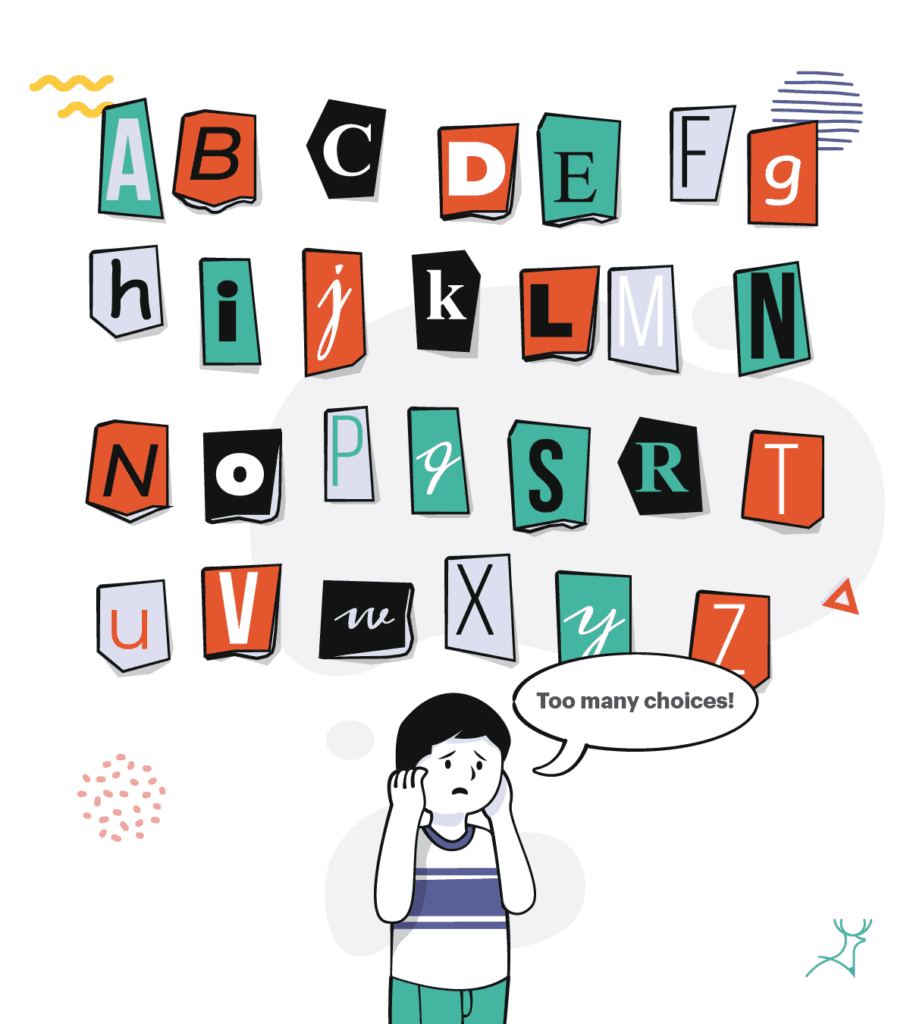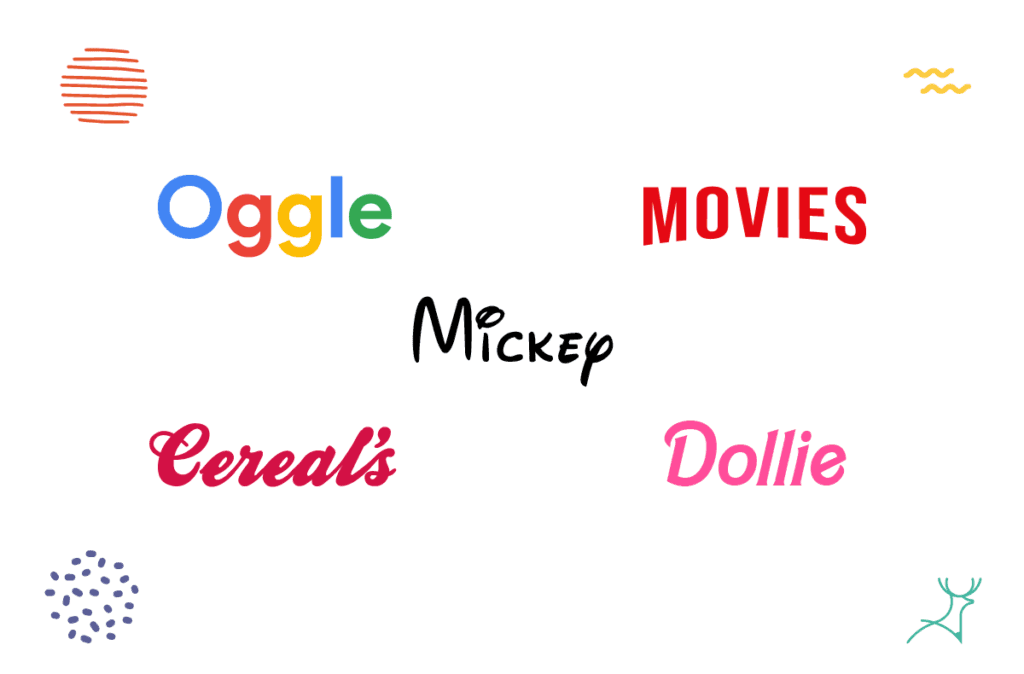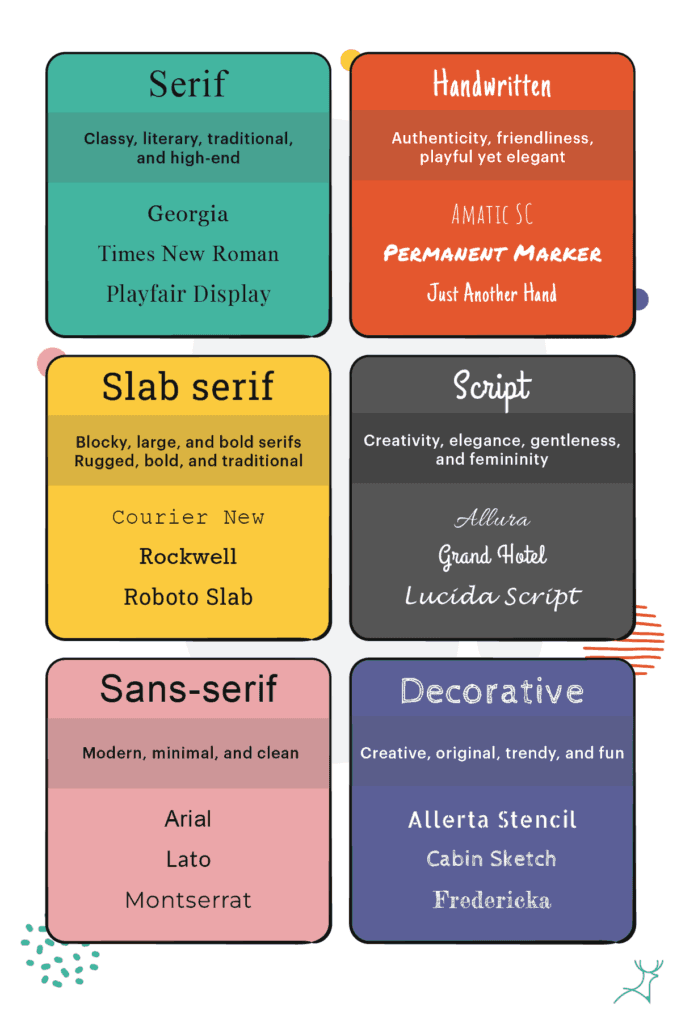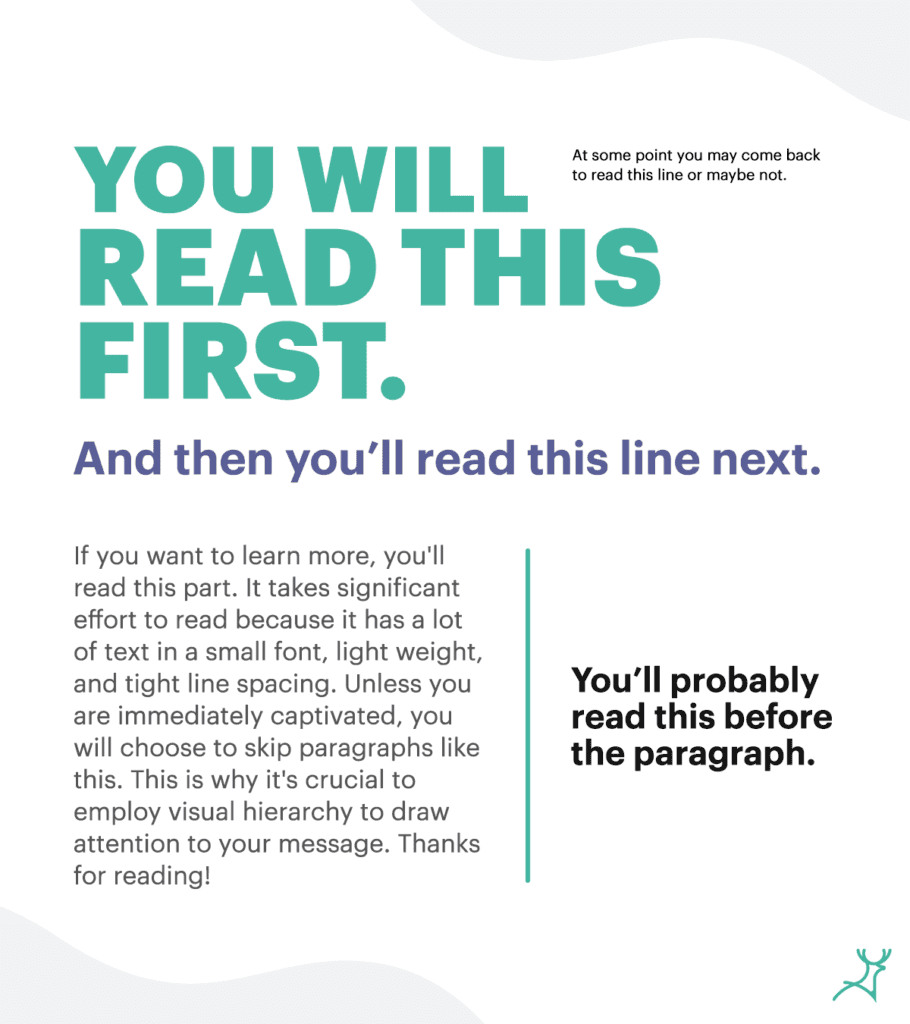
Choosing the best font for your brand: a key aspect in brand guides
Can you recognize which brands these fonts belong to? That’s Google, Netflix, Disney, Kellog’s, and Barbie
Every time I work with a client on a brand guide, it is a meticulous process of going through several versions of brand colors, logos, tone of voice, slogans, and more.
Business owners usually understand that these are important aspects of their brand identity. After all, they would like to leave the best impression on their customers.
But one aspect of the brand guide is often neglected: the fonts or typeface.
I have had a handful of clients tell me, “Anything will do” or “Let’s just go for something simple” instead of taking the time to choose the perfect font.
You might think it is “just text,” but fonts can convey emotions, set the tone, and create a lasting impression of your brand.
Look at all the fonts in the illustration above, for example.
These are some great examples of impactful brand fonts. Even without seeing their brand name or logo, you can remember which brands these fonts are from.
Their visual identity is so strong that you can see their brand name and logo matching their fonts in your head. That’s the goal when creating your brand guide.
Given the many font options online, how do you choose the best font for your brand? Should you develop a font from scratch?
You might get overwhelmed with all the font styles available online
We’ll answer these questions and more in this quick guide to the world of impactful fonts for branding.
First thing’s first: look into your brand personality
Before you even consider the types of fonts you should choose from, you should define your brand’s personality. How do you want your audience to see your brand?
The font you choose should reflect your brand’s values and overall vibe. A serious and reliable law practice, for example, does not match a fun and quirky font.
Some common brand personalities include bold, calm, casual, cheerful, elegant, flexible, fun, formal, fresh, warm, etc.
Are you going for sleek and modern, or are you going for traditional and reliable?
Choose the right font styles
To narrow your font options, look into the font styles that match the qualities you want to convey for your brand.
While there are thousands of fonts online, every font can be classified into six basic font types: serif, slab serif, sans-serif, handwritten, script, and decorative.
Each of these font types has its unique trait. This is also known as the font psychology.
Try typing out your brand name in both serif and sans-serif fonts, and you can already tell the difference.
Serif fonts give off a more traditional and serious vibe, while sans-serif fonts give off a more carefree and modern look.
Here is a guide to the different personality traits of these font styles:
A quick guide to font styles, their traits, and examples
Serif fonts for a traditional feel
The serif is named after the thin decorative strokes or feet at the end of a character’s stroke.
This is one of the oldest fonts and is often used for classic and traditional brands.
A lot of professional-looking logos and fashion brands like Burberry, Tiffany & Co., and Vogue use serif fonts.
Slab serif fonts to catch attention
These are large and blocky versions of the serif. It is often used for headlines, display fonts, and anything that requires bold fonts for emphasis. Volvo, Sony, and Honda are some famous logos using the slab serif.
Sans-serif fonts: the modern font for logos and web design
This font style means “without serif.” The characters in this font have a cleaner and minimal look, as it does not have decorative serifs.
These fonts are often used for brands because of their legibility and are great if you are looking for a more modern typeface.
These are also commonly used for web design as they are easy on the eyes.
The logos for Google, Spotify, Facebook, and Netflix use the modern characteristics of sans-serif fonts.
Handwritten fonts for a more approachable brand
These fonts mimic a person’s handwriting and give off a more personal and approachable vibe for any brand.
It is common to see weird and quirky letterforms for these font styles.
You might have seen them for the logos of Ray-Ban, Virgin, and H&M.
Script fonts: the best fonts for a classy and luxurious brand
These are fonts that mimic calligraphy or cursive handwriting.